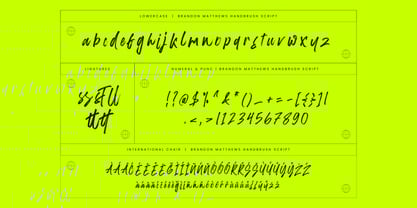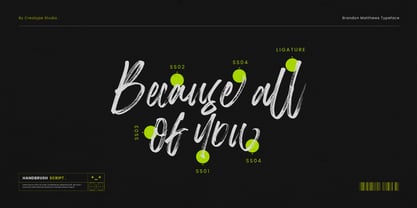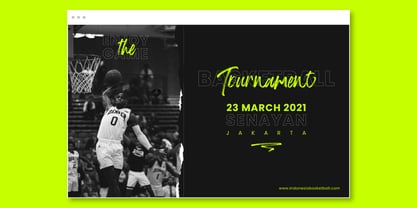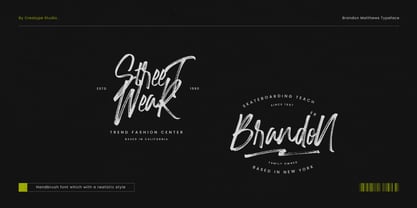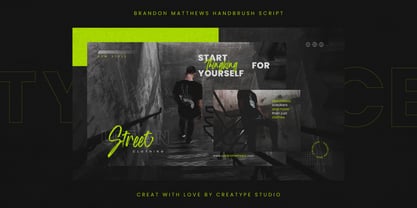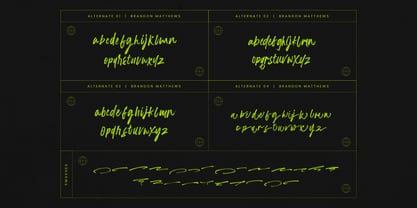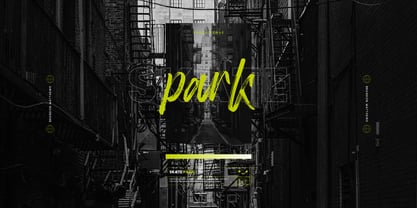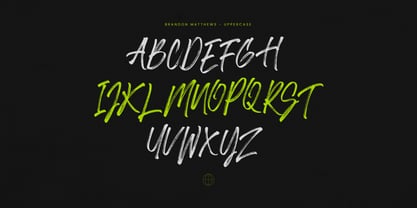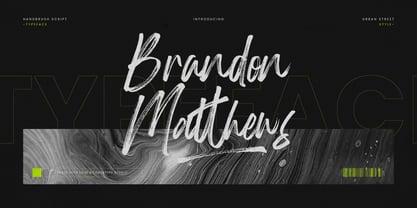
Brandon Matthews
by Creatype Studio
The Brandon Matthews Font Family was designed by Rian Rahardi and published by Creatype Studio. Brandon Matthews contains 2 styles and family package options. More about this family
Brandon Matthews is a bold handbrush script typeface packed with raw energy and street-style attitude. Designed for creatives who want their work to stand out with confidence, this font brings a strong urban vibe that’s perfect for edgy branding and impactful headlines.
Brandon Matthews isn’t just another brush font — it feels alive. Whether you’re designing for streetwear, music culture, or bold brand campaigns, this font will elevate your work with a gritty, handmade edge that feels loud and unapologetically raw.
Designers: Rian Rahardi
Foundry: Creatype Studio